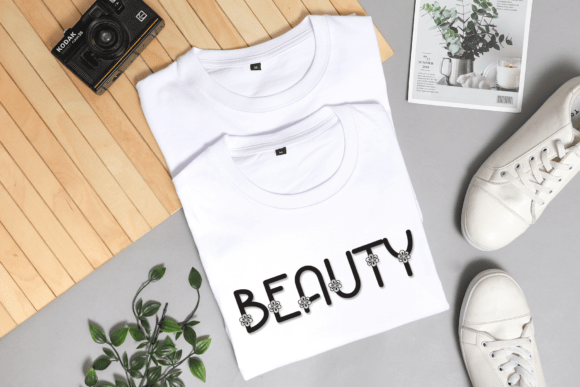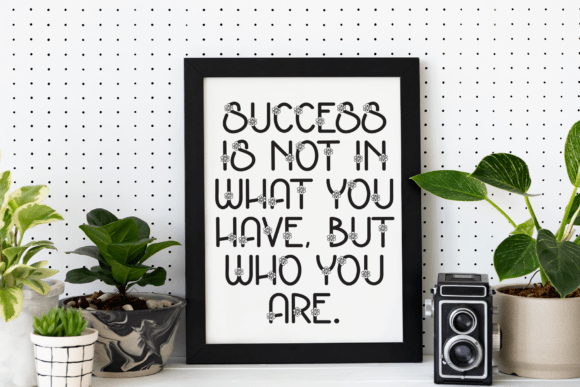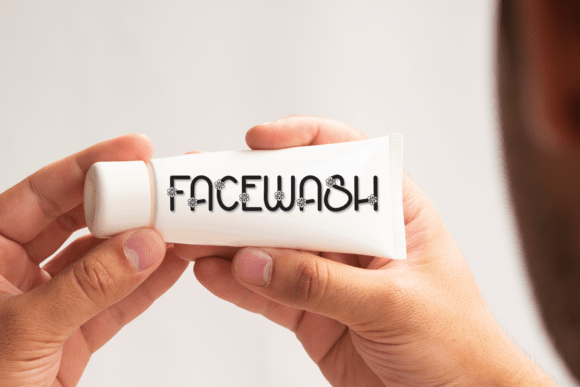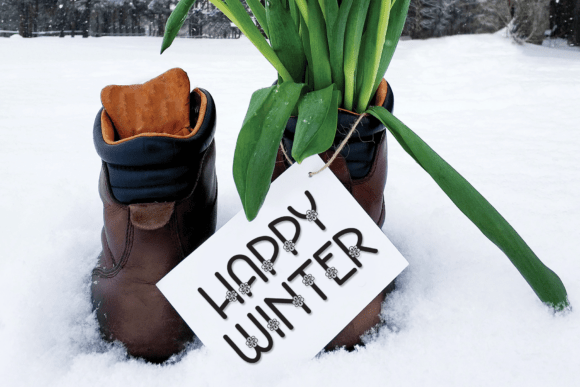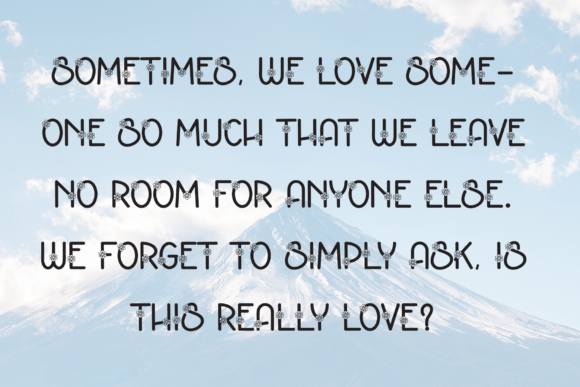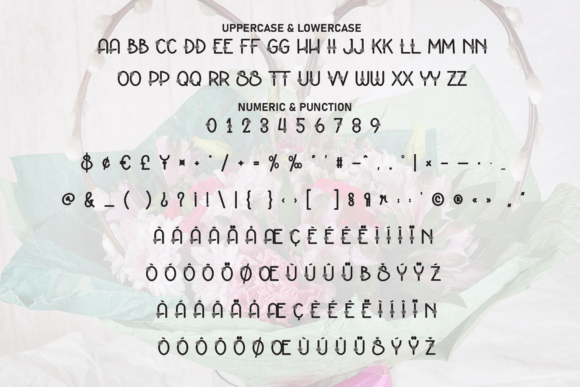
Unlock Your Creative Potential with the Flower Bucked Font
Have you ever stared at a blank page, trying to come up with the perfect design to capture your vision? We’ve all been there. But what if you had the perfect tool to help you express yourself creatively? Introducing the Flower Bucked Font, a unique and stylish font designed to take your projects to the next level.
As a designer, you know the importance of a great font in making your designs stand out. The Flower Bucked Font is perfect for creating eye-catching wall displays, wedding invitations, social media logos, and more. With its versatility and ease of use, this font is a valuable addition to any designer’s toolkit. Whether you’re working on a personal project or a client’s design, the Flower Bucked Font is sure to impress.
Key Features of Flower Bucked Font
- Unique Characteristics: Flower Bucked Font features a unique, hand-drawn design with a mix of floral and geometric elements, giving it a distinctive and eye-catching appearance.
Flower Bucked Font Review
Overall, I think the Flower Bucked Font is a unique and playful choice for any design project. It has a certain charm to it that can be really effective in the right context. ✨ The font’s whimsical feel and the way the letters curve and twist together can add a lot of personality to a design.
- What works well: The Flower Bucked Font’s versatility and ability to be used in a variety of settings, from digital displays to printed materials. Its high contrast and bold lines make it easy to read, even at smaller font sizes.
- ✨ Unique aesthetic: The font’s floral design elements add a touch of elegance and sophistication to any design.
- ✨ Customization options: The font can be easily customized to fit your specific design needs, with options for color, size, and spacing.
However, there are a few limitations to consider. ⚠️ The font may not be suitable for all types of projects, particularly those that require a more professional or formal tone. Additionally, the font’s design can be a bit overwhelming if used in large quantities, so it’s best to use it in moderation.
Overall, I think the Flower Bucked Font is a great choice for designers looking to add a little whimsy and personality to their projects. While it may not be suitable for every project, it can be a really effective choice when used thoughtfully and in the right context.
Use the Flower Bucked Font for headings, titles, and other prominent text elements to add a touch of elegance and whimsy to your designs.
Use the font in combination with other decorative fonts to create a unique and eye-catching visual effect.
Experiment with different font sizes, colors, and styles to achieve the desired level of sophistication or playfulness.
The Flower Bucked Font is ideal for use in:
Baby shower invitations and decorations
Greeting cards and gift tags
Branding and marketing materials for businesses with a playful or whimsical tone.